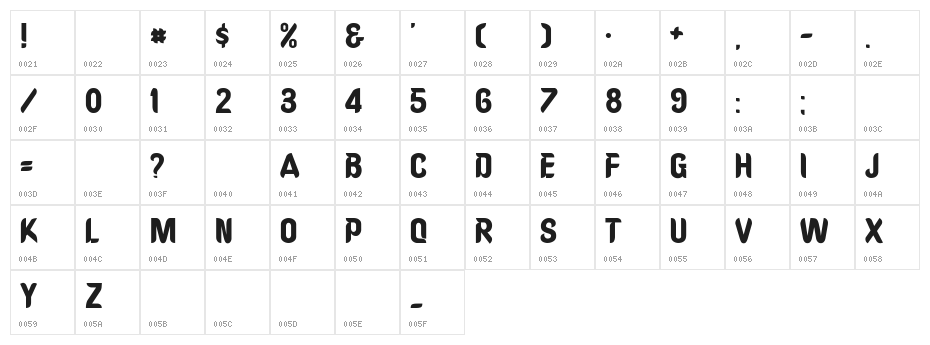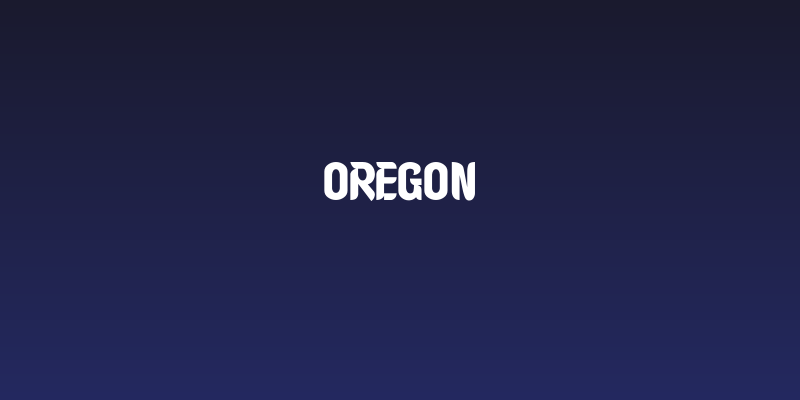
Oregon Font
Oregon Description
This font features a bold and robust design with a unique, slightly rounded style that gives it a modern yet approachable appearance. The characters are thick and have a strong presence, making them highly legible and impactful. The uppercase letters are uniform in height, while the lowercase letters maintain a consistent baseline, enhancing readability. The numbers are equally bold, ensuring clarity in numerical displays. Special characters are distinct and well-defined, adding versatility to the font's usage. Overall, this font combines strength and modernity, making it suitable for various design needs.
| Proposed Projects | Ideal for branding, advertising, posters, and headlines where a strong visual impact is needed. |